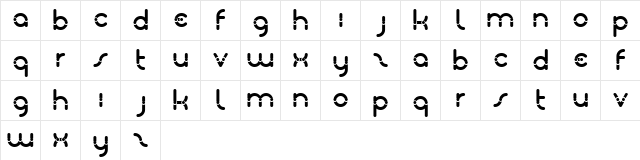
ojol Regular Font Preview
ojol Regular
ojol Regular Font Details
Design Context for ojol Typeface
ojol offers clean, dependable letterforms without strong stylistic allegiance, making it a practical choice for designers who need flexibility.